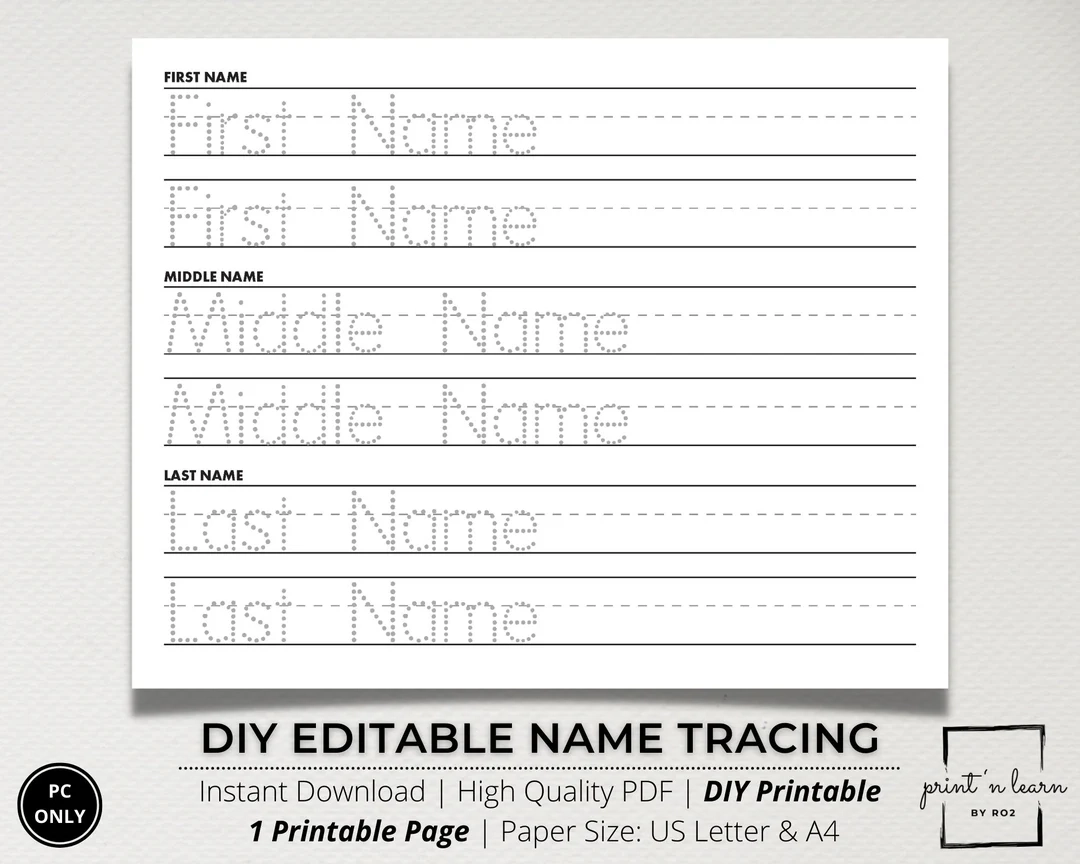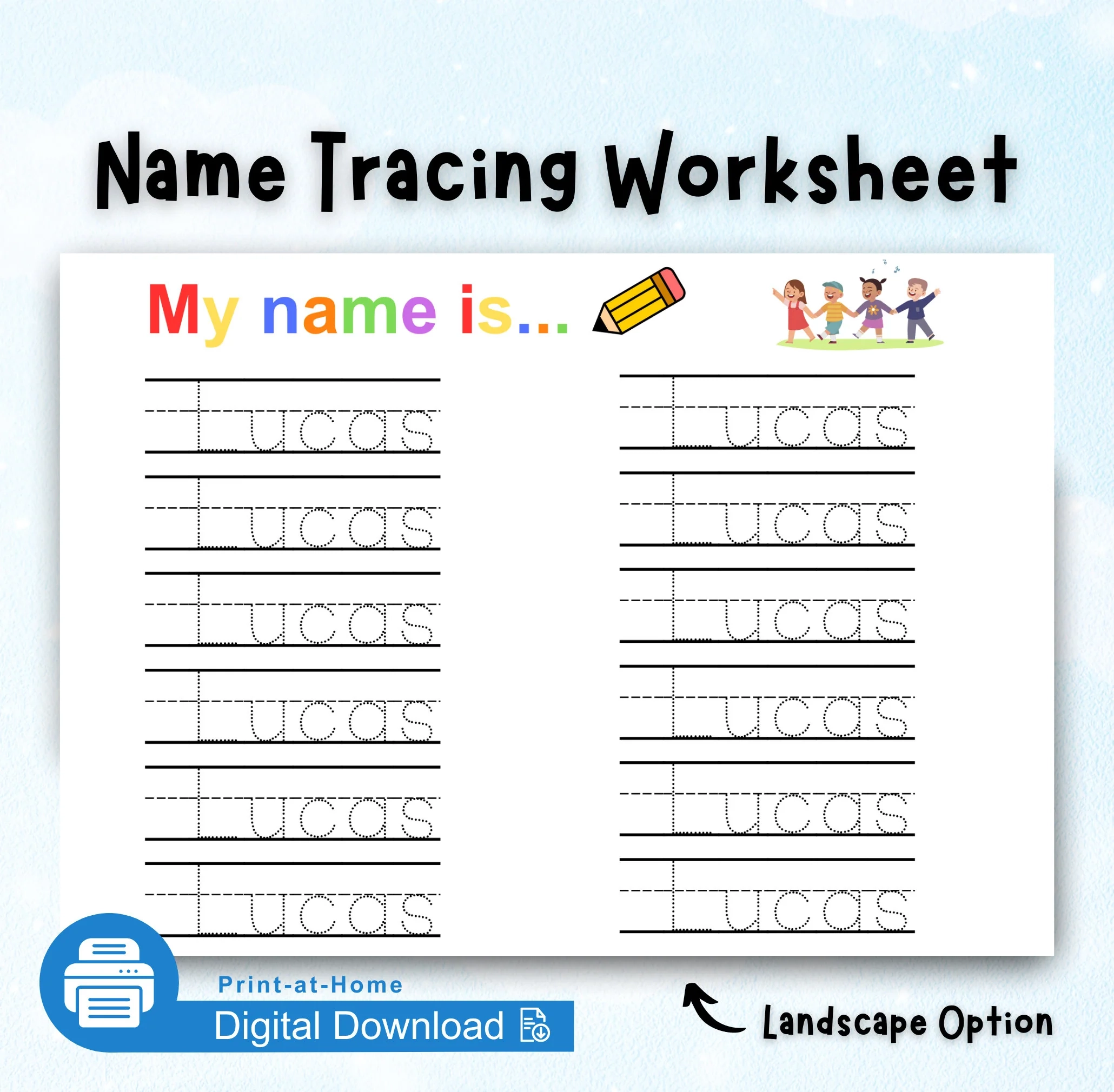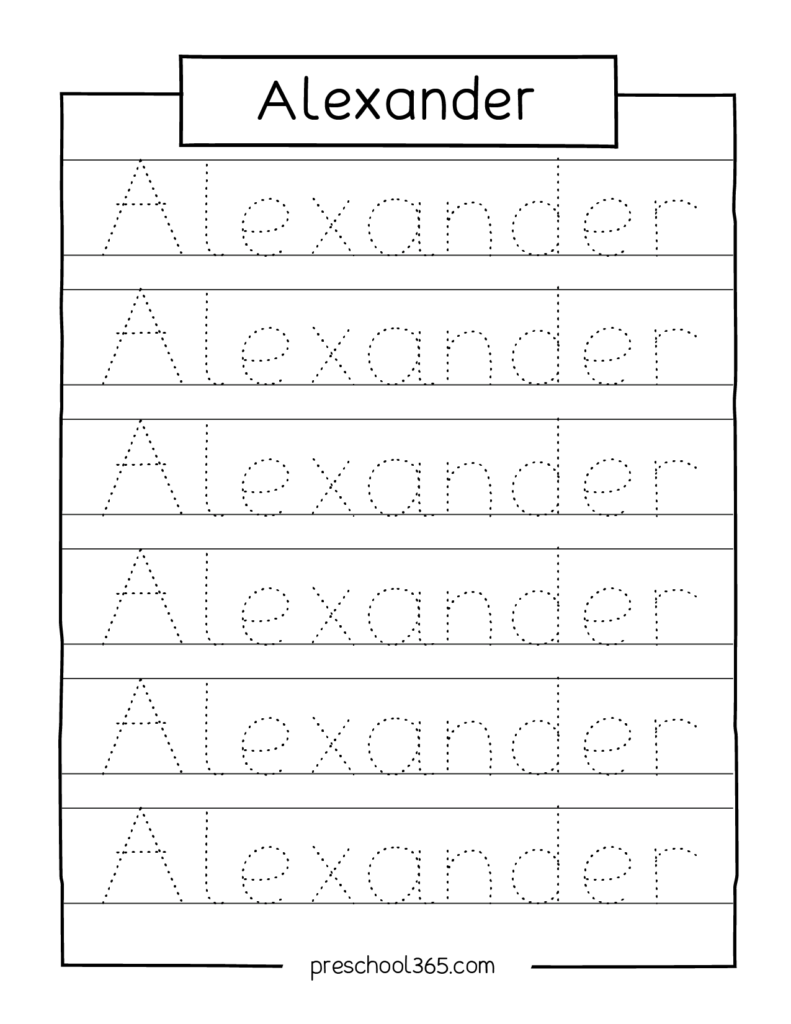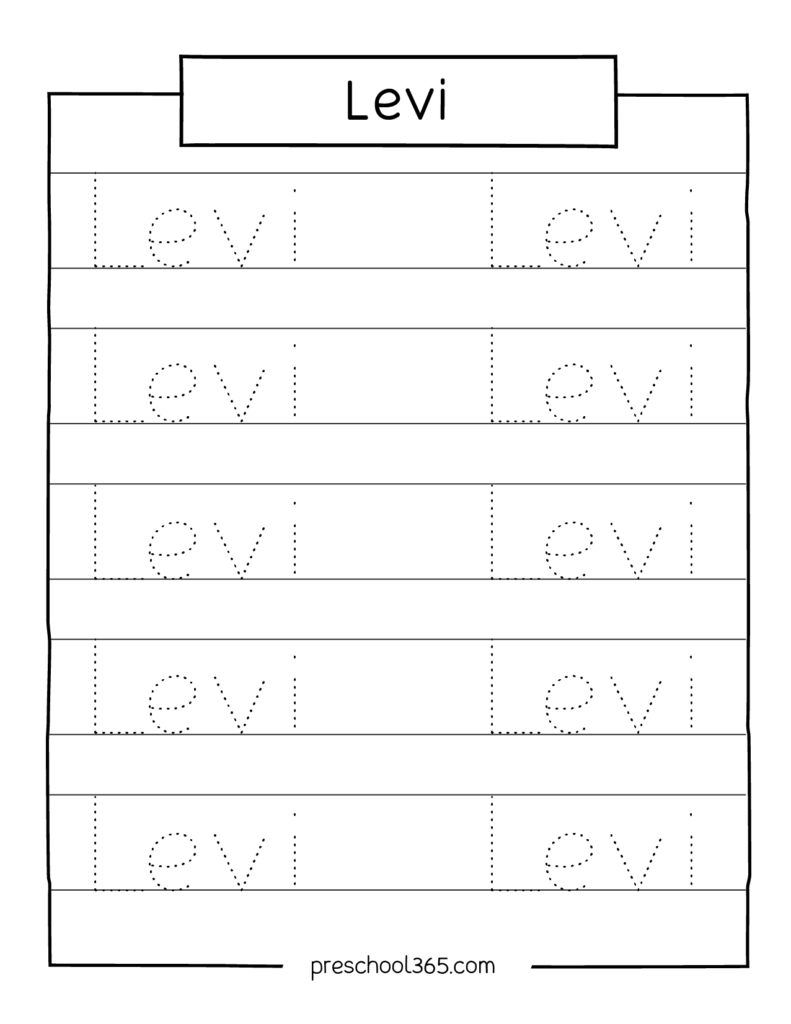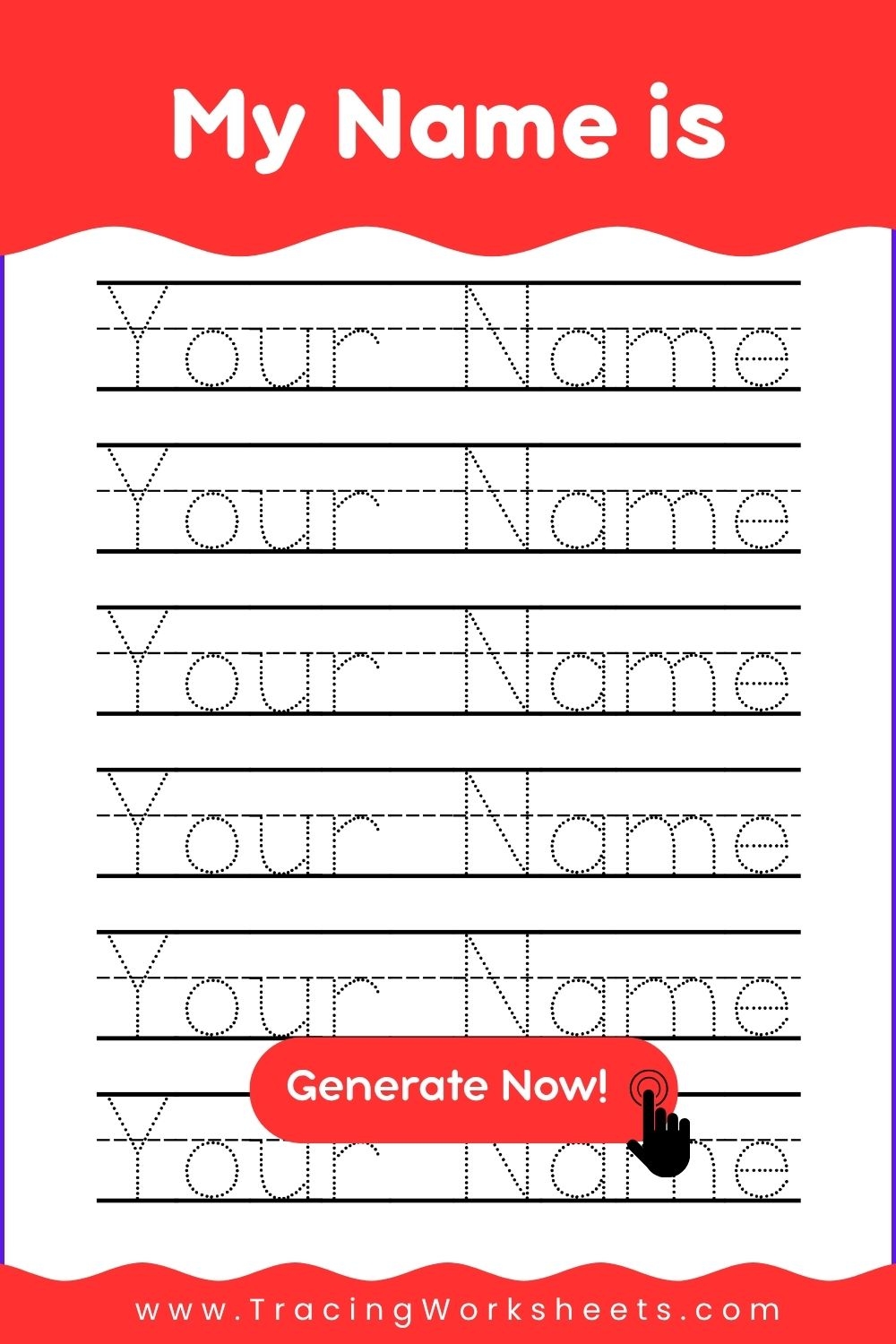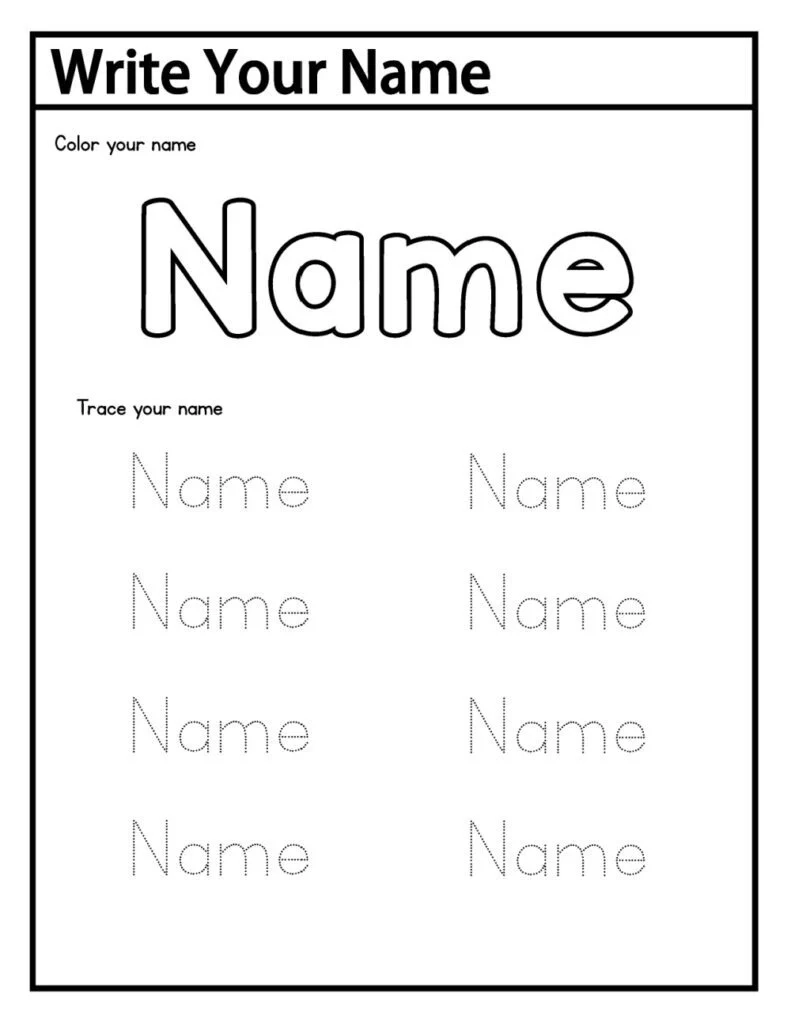
Finding the perfect font can elevate your design projects significantly. Whether you’re working on a personal project or a professional one, the right font can make all the difference in conveying your message effectively.
Tracing name fonts are ideal for creating custom designs, invitations, or even logos. These fonts often feature elegant curves and playful styles that can enhance your creative work. Finding a free download option makes it even more appealing.
Incorporating tracing name fonts into your designs can bring a fresh perspective. With so many options available for free download, you can experiment and find the ideal font that resonates with your style and vision.
Exploring tracing name fonts opens up new creative possibilities. With the right resources, you can easily enhance your designs and make them truly unique without breaking the bank.